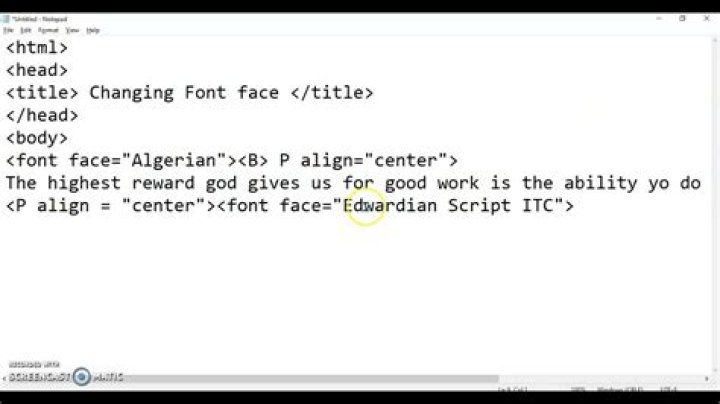
What is font face arial in HTML?
The Font Face attribute specifies the font name of the text inside a Font tag. Arial Font > When you specify a Font Face, the typeface you specify must be installed on the computer of the person viewing the web page.
How do I make an Arial font in HTML?
To change font type in HTML, use the CSS font-family property. Set it to the value you want and place it inside a style attribute. Then add this style attribute to an HTML element, like a paragraph, heading, button, or span tag.
Is Arial a font face?
Arial, sometimes marketed or displayed in software as Arial MT, is a sans-serif typeface and set of computer fonts in the neo-grotesque style. The typeface was designed in 1982, by Robin Nicholas and Patricia Saunders, for Monotype Typography.
How do I use face fonts in HTML?
You can use a tag to set all of your text to the same size, face, and color. The font tag is having three attributes called size, color, and face to customize your fonts. To change any of the font attributes at any time within your webpage, simply use the tag.
What is meant by face in HTML?
The face attribute specifies the font of the text inside a element.
How can I add font in HTML?
The @font-face CSS rule explained below is the most common approach for adding custom fonts to a website.
How do you change the font of text in HTML?
To change the text font in HTML, use the style attribute. The style attribute specifies an inline style for an element. The attribute is used with the HTML
tag, with the CSS property font-family, font-size, font-style, etc. HTML5 do not support the tag, so the CSS style is used to change font.
How does Arial font look like?
Arial is a neo-grotesque sans-serif typeface designed by Robin Nicholas and Patricia Saunders. The most obvious differences between the two typefaces lie in the stroke terminals—Helvetica’s terminals are always perfectly horizontal or vertical, while Arial’s terminals are angled in many of the letters.
What is the syntax of font face rule?
Syntax
| Font descriptor | Values | Description |
|---|---|---|
| font-weight | normal bold 100 200 300 400 500 600 700 800 900 | Optional. Defines the boldness of the font. Default value is “normal” |
| unicode-range | Optional. Defines the range of unicode characters the font supports. Default value is “U+0-10FFFF” |
Is font face HTML?
The HTML face Attribute is used to specify the font family of the text inside element. Attribute Values: It contains single value font_family which is used to specify the font family.
What is the meaning of font face?
@font-face is a CSS rule that allows you to input your own font to appear on a website even when the particular font is not installed on the visitor’s computer. The most important thing about this rule is that it opened a whole new world for designers.